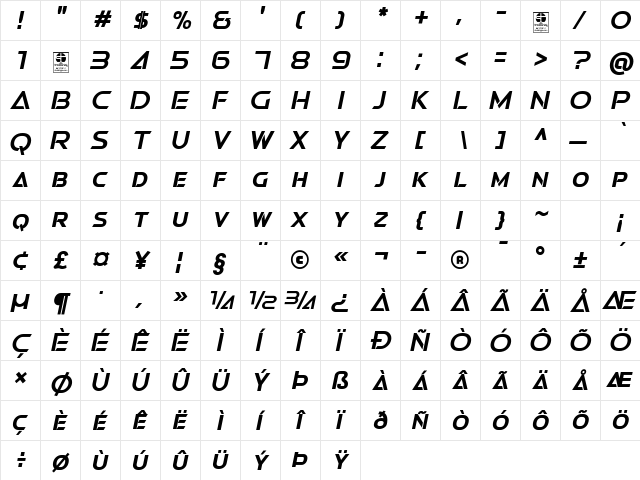
Swera Demo Italic
Design Context for Swera Demo Typeface
Swera Demo takes a measured approach to typography — its balanced proportions and neutral character make it a reliable workhorse for both digital and print work. The dynamic lean of this cut emphasises speed and emphasis in any layout.
Pro Tip: Try Swera Demo for annotation and caption copy alongside an upright companion — the contrast in angle creates a dynamic but ordered typographic system.